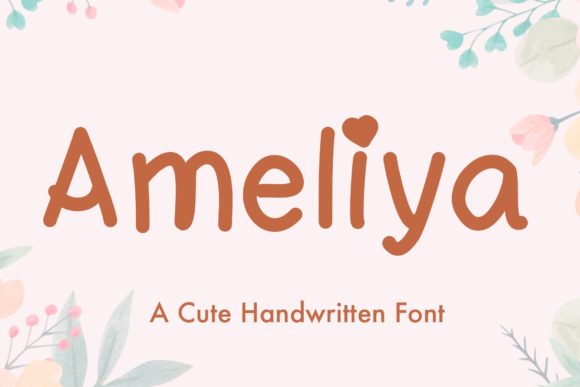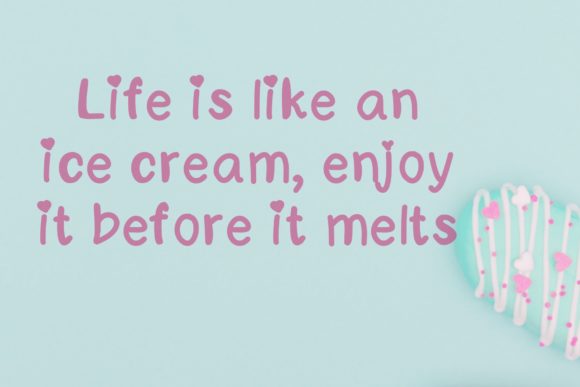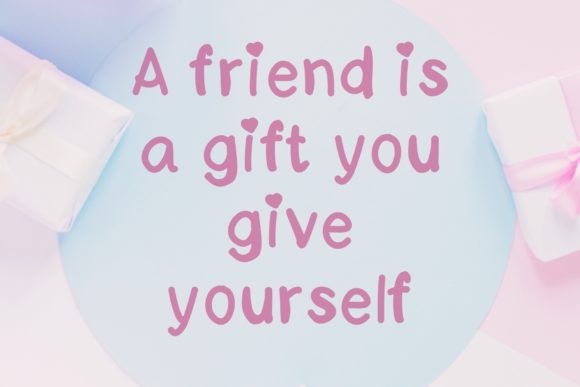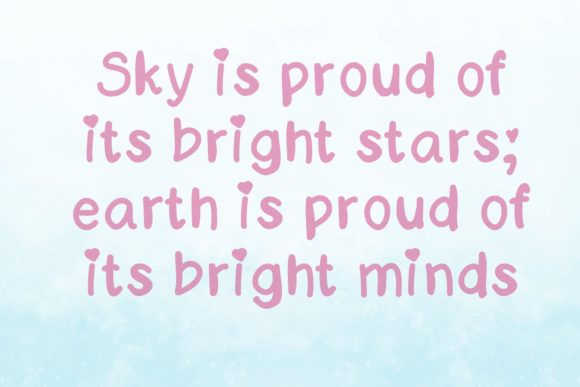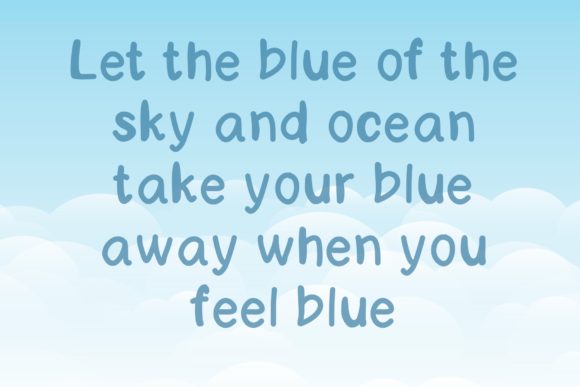
Ameliya Font
About Ameliya Font
Ameliya is a cute handwritten font with a romantic feel. Add this font to your creative ideas and notice how it will make them stand out!